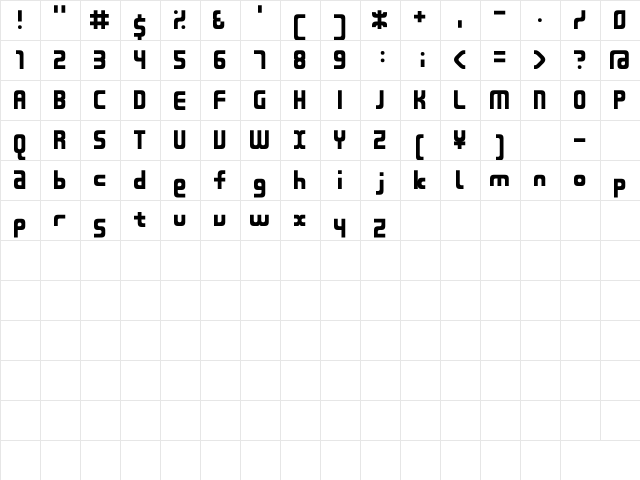
D3 Beatmapism Curve Regular
Design Context for D3 Beatmapism Curve Typeface
D3 Beatmapism Curve offers clean, dependable letterforms without strong stylistic allegiance, making it a practical choice for designers who need flexibility.